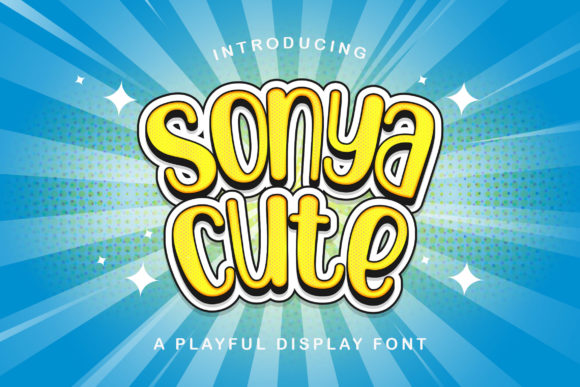
Get ready to embark on a typographic adventure with Sonya Cute Font, the display font that sparks joy and captivates imaginations. Crafted by StringLabs, this font is a delightful symphony of smooth curves and playful characters, designed to ignite creativity and add a touch of whimsy to your projects.
Sonya Cute Font is the perfect companion for fashion branding, editorial designs, and any creative endeavor that demands a dash of fun and personality. Picture this: your designs adorned with Sonya Cute's charming letters, exuding a sense of playfulness that invites your audience to engage and explore. Whether it's a captivating logo, an eye-catching poster, or an enchanting children's book, Sonya Cute Font will transform your words into visual masterpieces.
The beauty of Sonya Cute lies in its versatility. Its friendly and approachable style makes it a natural choice for children's-related projects, effortlessly capturing the innocence and wonder of youth. It's the perfect font to bring life to storybooks, educational materials, and any design that aims to connect with young hearts and minds. But Sonya Cute's charm extends far beyond the realm of childhood. Its playful nature adds a touch of lightheartedness to fashion branding, creating logos and promotional materials that exude a sense of youthful energy and vibrancy.
In the world of editorial design, Sonya Cute Font shines as a beacon of creativity. Its unique letterforms lend themselves beautifully to magazine covers, article headers, and other eye-catching elements, demanding attention and inviting readers to delve deeper into your content. Sonya Cute's ability to effortlessly convey emotions and moods makes it an invaluable tool for designers seeking to create impactful and memorable designs.